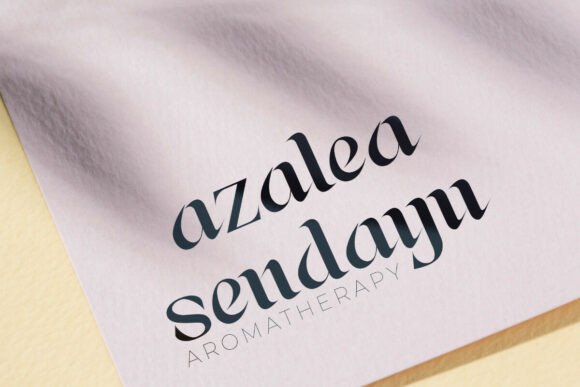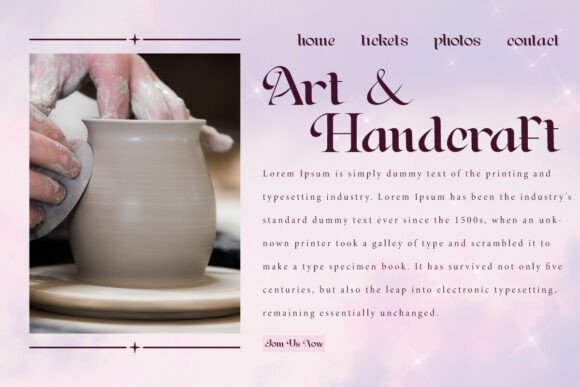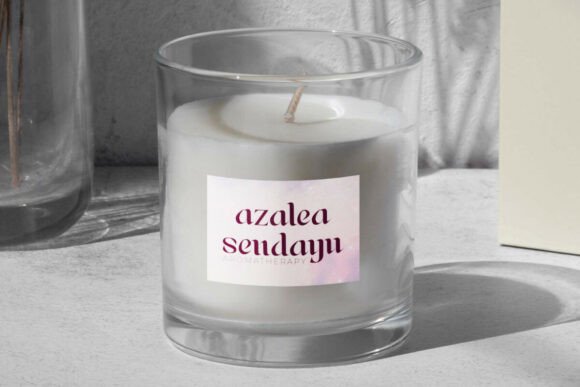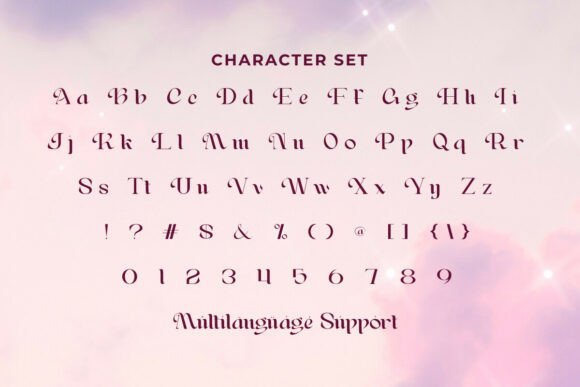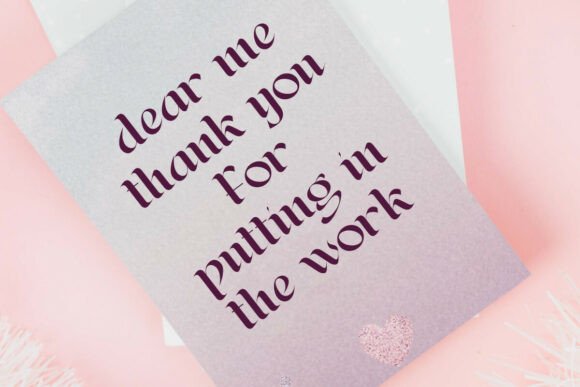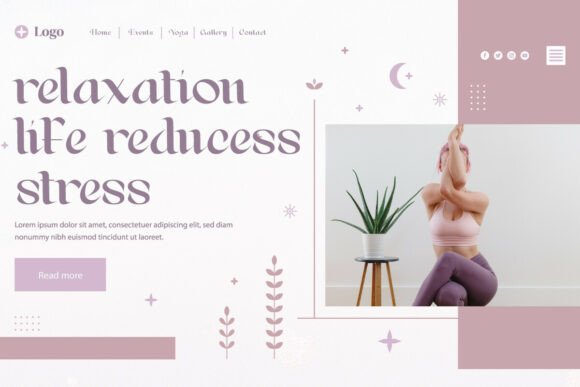
Introduction to Magic Munchies Font
As a designer, have you ever found yourself stuck in a creative rut, searching for that perfect font to elevate your project from ordinary to extraordinary? I’m sure you’ve experienced the frustration of browsing through countless font options, only to settle for something that’s just…fine. But what if I told you there’s a font that can transport your designs to a world of magic and wonder?
Enter the enchanting Magic Munchies Font, a high-quality serif display font that beautifully blends whimsy and sophistication. This stunning font is designed to captivate and elevate any creative project, from premium brand identities to marketing materials and event designs. With its unique character and seamless compatibility across various design software, Magic Munchies Font is the perfect design resource for any project.
Honest Review: Magic Munchies Font
As a designer, I’m always on the lookout for high-quality design resources to elevate my creative projects. Recently, I had the chance to try out the Magic Munchies Font, and I must say, it’s a delightful addition to my design arsenal.
- ✨ Unique and whimsical design that adds a playful touch to any project.
- ⚠️ Limited font styles and variations, which might not be ideal for complex designs.
- ⚠️ Not suitable for formal or professional projects, due to its playful nature.
Overall, I’m impressed with the Magic Munchies Font. It’s a great design resource for creative projects, such as children’s books, party invitations, or social media graphics. Just be aware of its limitations, and you’ll be able to get the most out of this fun and quirky font.
The Magic Munchies Font is ideal for use in food-related businesses, such as restaurants and bakeries. It can also be used in creative projects, such as graphic novels and children’s books.